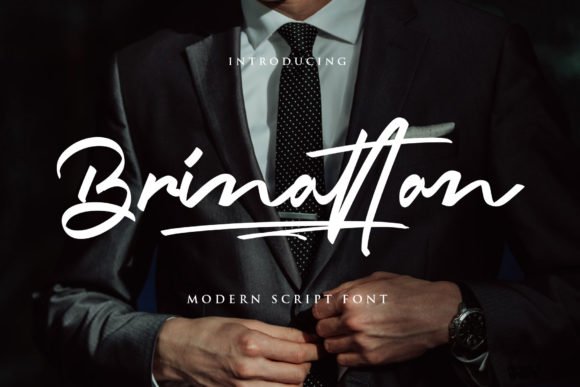
Introduction to Brinattan Font
Brinattan is a handwritten script font, with an elegant and beautiful look.
It looks stunning on wedding invitations, thank you cards, quotes, greeting cards, logos, business cards and every other design which needs a handwritten touch This font is PUA encoded which means you can access all of the glyphs and swashes with ease.
Brinattan Font offers exceptional quality and versatility, making it a valuable addition to your design toolkit. Whether you’re creating for personal projects or commercial use, Brinattan Font delivers professional results.